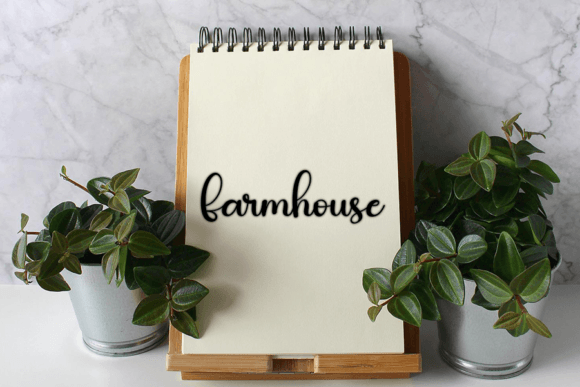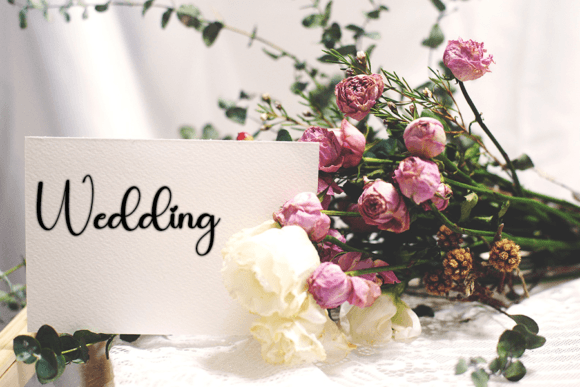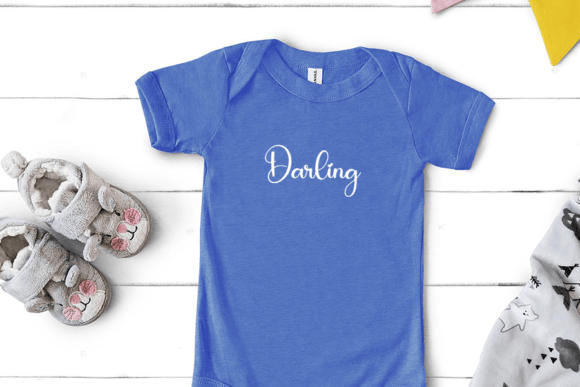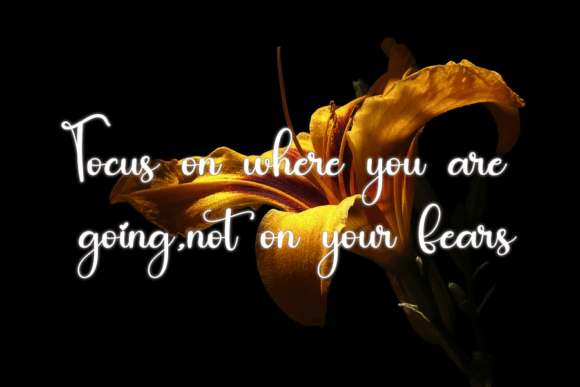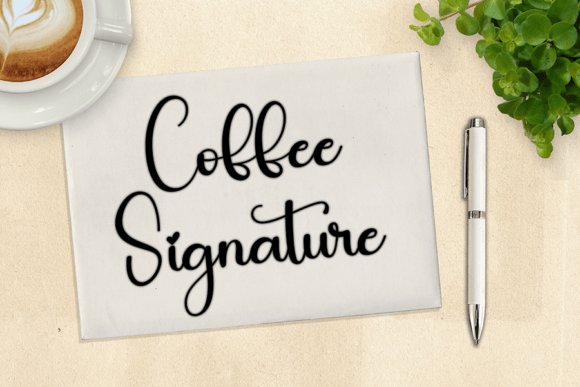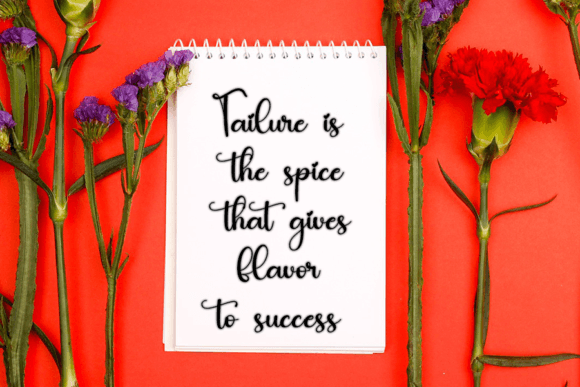
Introducing Darling Font: The Ultimate Choice for Romantic and Personalized Designs
Are you a designer or crafter looking for a font that can add a touch of romance and personality to your designs? Look no further than Darling Font, a beautiful handwritten script font that is sure to capture the hearts of your audience. In this article, we’ll take a closer look at Darling Font, its features, and how you can use it to create stunning designs that exude love and warmth.
What is Darling Font?
Darling Font is a cute and adorable handwritten script font that is designed to bring a touch of elegance and sophistication to your designs. Its dainty and joyful strokes make it perfect for creating romantic and personalized designs that are sure to leave a lasting impression. Whether you’re designing wedding invitations, greeting cards, or any other type of project that requires a personal touch, Darling Font is the ideal choice.
Key Features of Darling Font
So, what makes Darling Font so special? Here are some of its key features:
- Handwritten script font: Darling Font is a handwritten script font that is designed to mimic the look and feel of handwritten text. Its strokes are smooth, flowing, and elegant, making it perfect for creating romantic and personalized designs.
- Cute and adorable: Darling Font is a cute and adorable font that is sure to capture the hearts of your audience. Its dainty and joyful strokes make it perfect for creating designs that exude love and warmth.
- Romantic and personalized: Darling Font is designed to add a touch of romance and personality to your designs. Its elegant strokes and flowing script make it perfect for creating wedding invitations, greeting cards, and any other type of project that requires a personal touch.
How to Use Darling Font
Darling Font is easy to use and can be incorporated into a variety of designs. Here are some ideas to get you started:
- Wedding invitations: Darling Font is perfect for creating beautiful and romantic wedding invitations. Its elegant strokes and flowing script make it ideal for formal and informal wedding invitations.
- Greeting cards: Darling Font is also perfect for creating greeting cards for special occasions such as Valentine’s Day, Mother’s Day, and Christmas. Its cute and adorable strokes make it sure to bring a smile to the recipient’s face.
- Personalized gifts: Darling Font can also be used to create personalized gifts such as customized mugs, tote bags, and jewelry. Its romantic and personalized touch makes it perfect for gifts that require a special touch.
Tips for Using Darling Font
Here are some tips for using Darling Font:
- Pair it with other fonts: Darling Font can be paired with other fonts to create a unique and interesting design. Try pairing it with a bold font for a contrasting look or with a similar script font for a cohesive look.
- Experiment with colors: Darling Font can be used with a variety of colors to create different effects. Try using pastel colors for a soft and romantic look or bright colors for a bold and playful look.
- Use it sparingly: Darling Font is a beautiful font, but it can be overwhelming if used too much. Use it sparingly to create a focal point in your design and balance it with other elements.
Darling Font is a beautiful handwritten script font that is perfect for creating romantic and personalized designs. Its cute and adorable strokes make it ideal for wedding invitations, greeting cards, and any other type of project that requires a special touch. With its ease of use and versatility, Darling Font is sure to become a favorite among designers and crafters. So why wait? Give Darling Font a try today and see how it can elevate your designs to the next level!